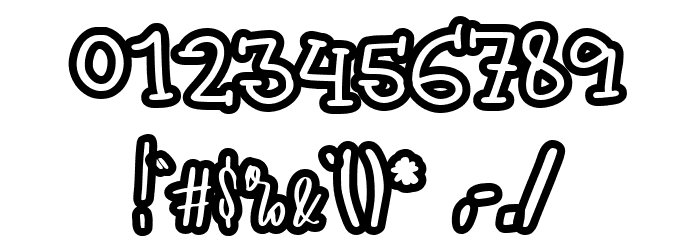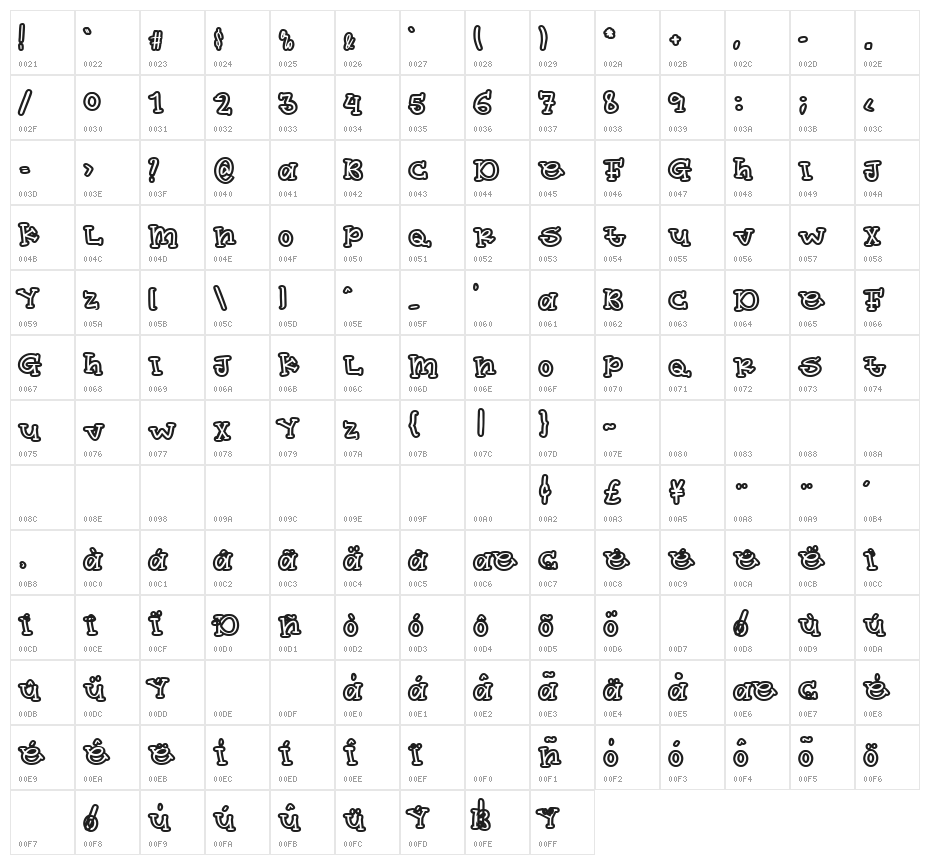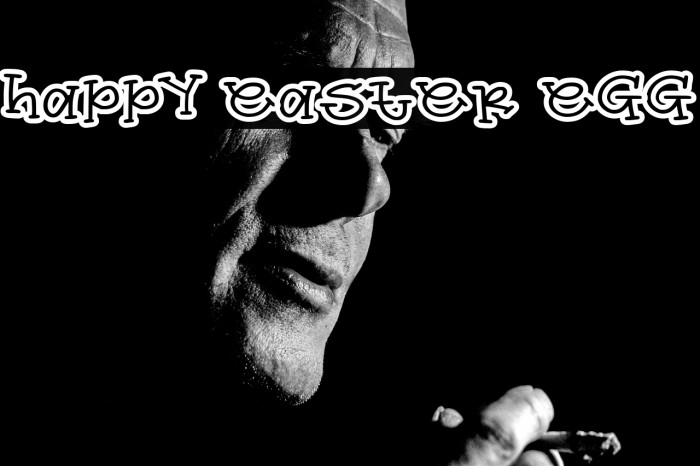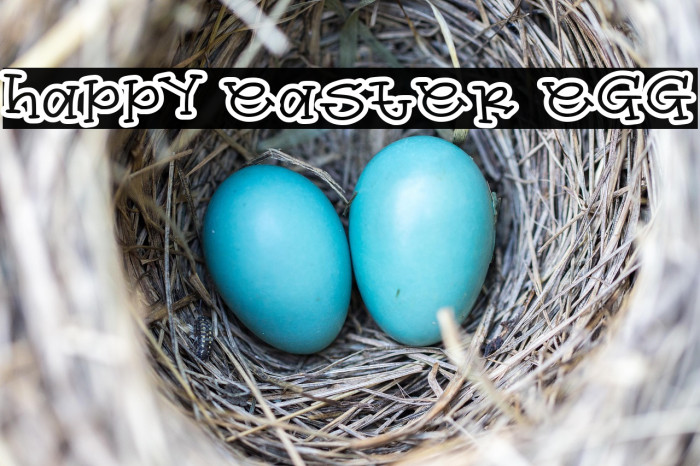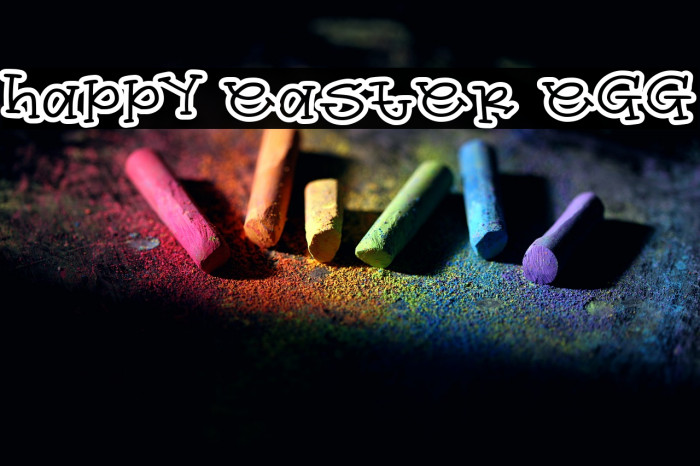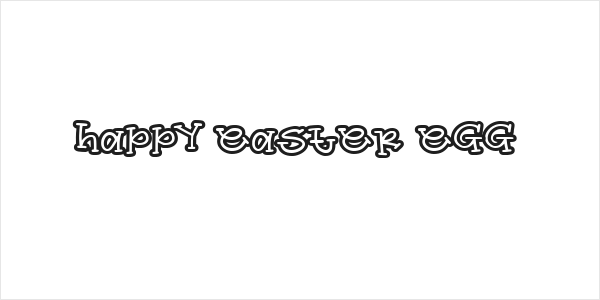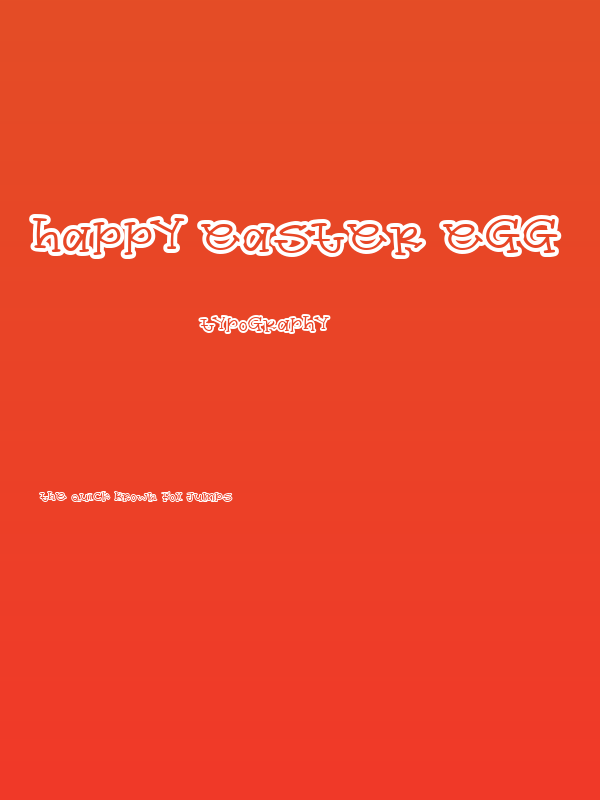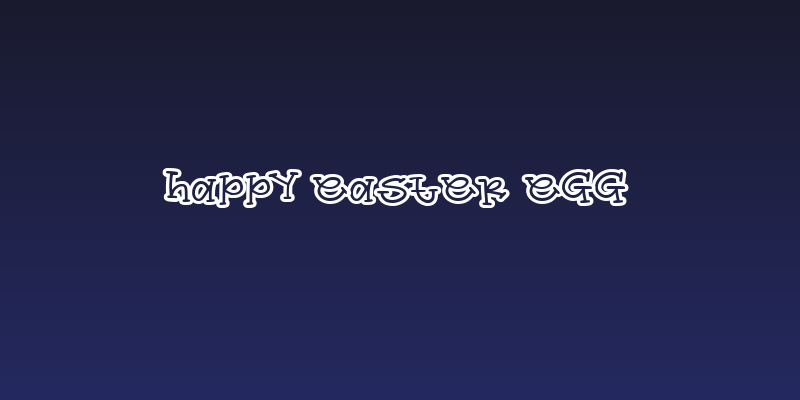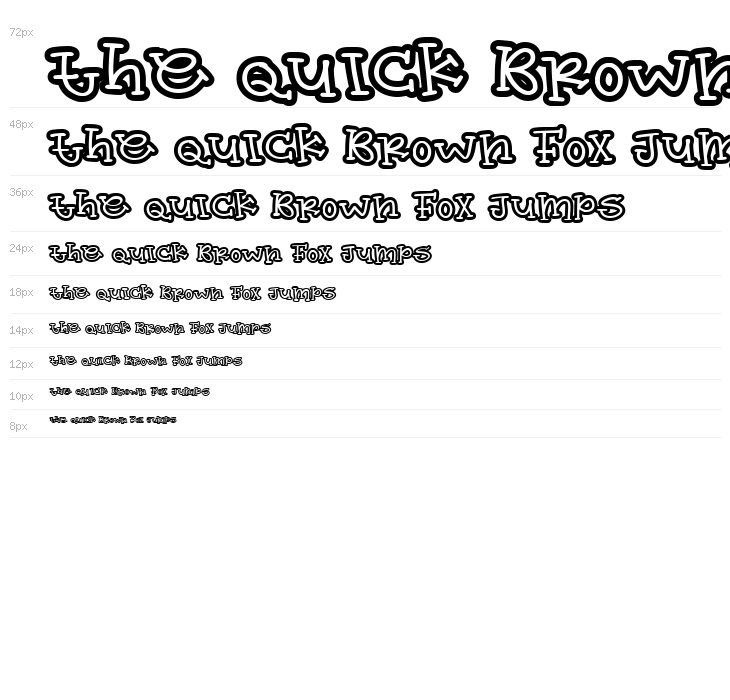
Happy Easter Egg Font
Happy Easter Egg Description
This playful and whimsical font features bold, rounded characters with a thick outline that gives it a cartoonish and fun appearance. The letters have a bouncy and irregular baseline, adding to its lively and energetic style. The font is highly decorative, with each character exhibiting a unique flair, making it ideal for creative and informal designs. The numbers and special characters maintain the same playful aesthetic, ensuring consistency across all elements. Its bold and eye-catching nature makes it perfect for projects that require a touch of humor and creativity.
| Proposed Projects | Ideal for children's books, party invitations, comic strips, and playful branding materials. |